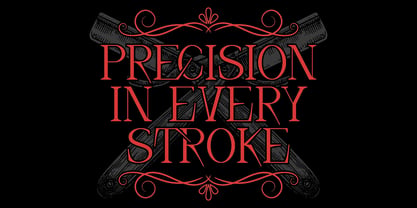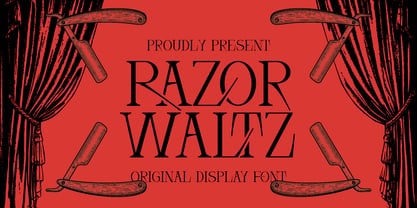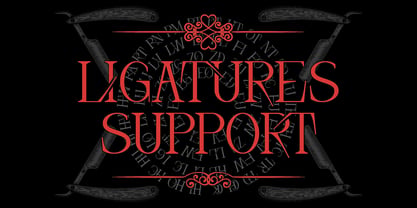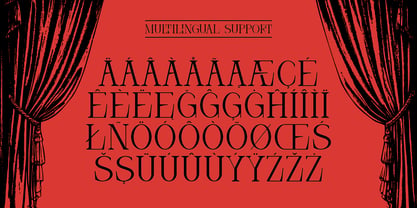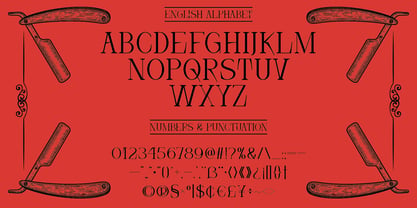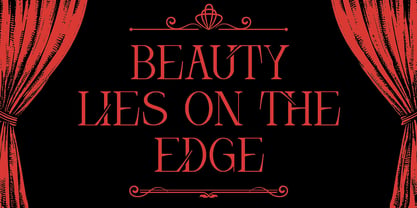
Razor Waltz
by Vozzy
The Razor Waltz Font Family was designed by Oleg Voznyy and published by Vozzy. Razor Waltz contains 1 styles. More about this family
Introducing "Razor Waltz," a striking font designed to elevate your headlines and accent inscriptions while capturing attention effortlessly. This unique typeface features an extensive range of characters, including punctuation marks and multilingual options, ensuring versatility for various design needs. With a wealth of standard ligatures, Razor Waltz enhances readability and aesthetic appeal (ensure your software supports this OpenType feature). Perfect for branding, web design, and editorial projects, this font will add a touch of elegance to your beautiful designs!
Designers: Oleg Voznyy
Foundry: Vozzy